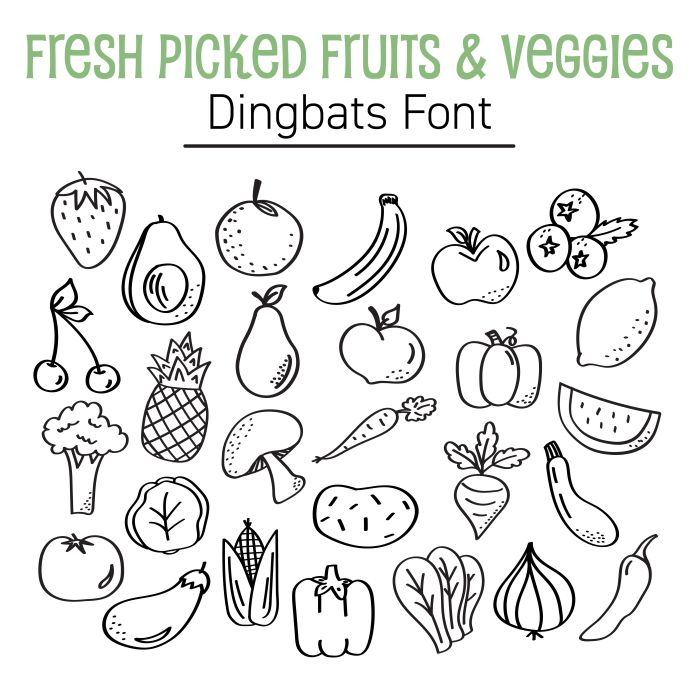
"Fresh-Picked Fruits & Veggies Dingbats Font" is a versatile font featuring 26 unique, hand-drawn icons of freshly harvested fruits and veggies. These crisp, detailed designs are ideal for crafting, labeling, digital planners, scrapbooking, tattoos, decor projects and much more. Each letter of the alphabet corresponds to a different produce icon, bringing a natural and playful touch to your creations. Each design can be easily resized without affecting the quality. Add this fun design to your cart today!